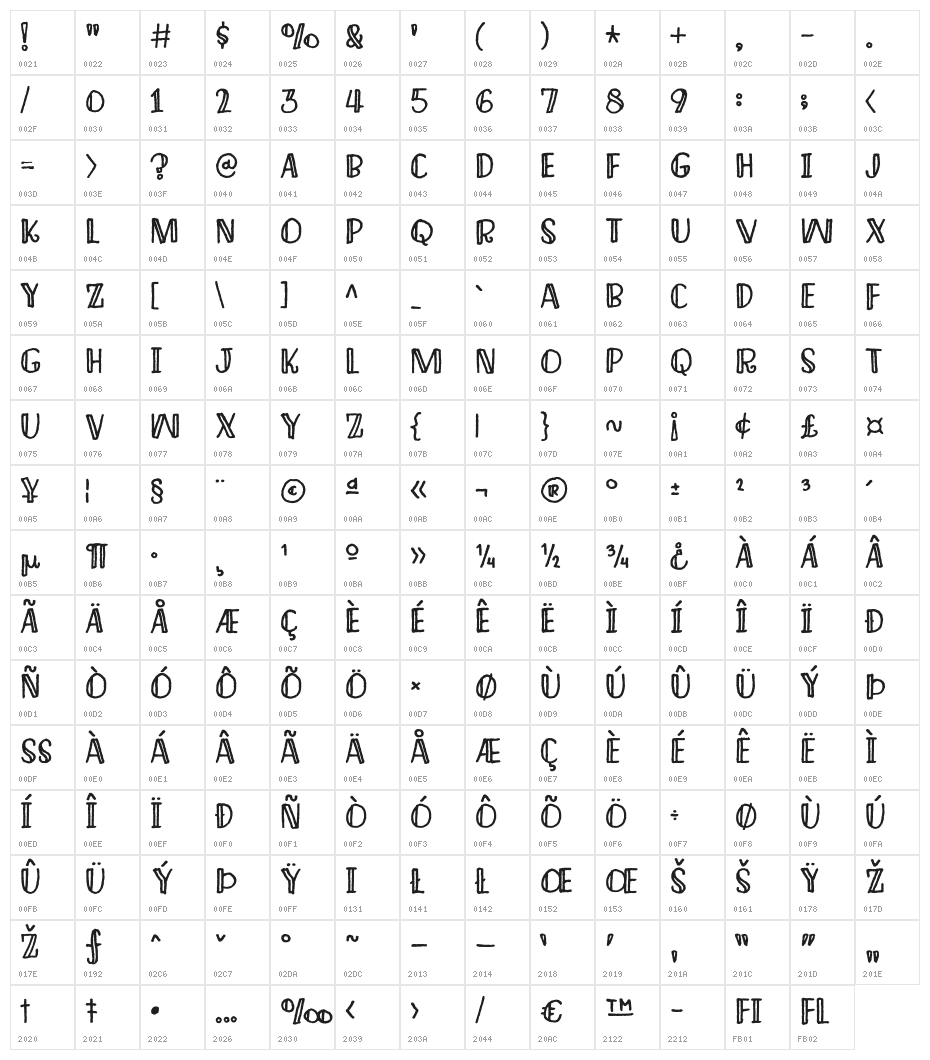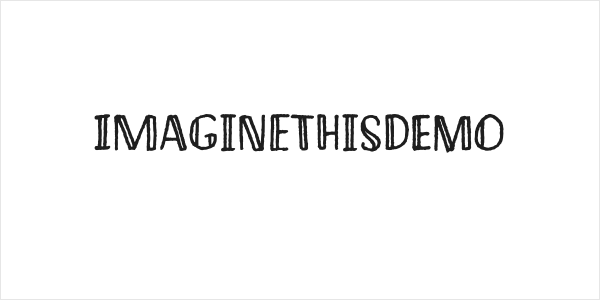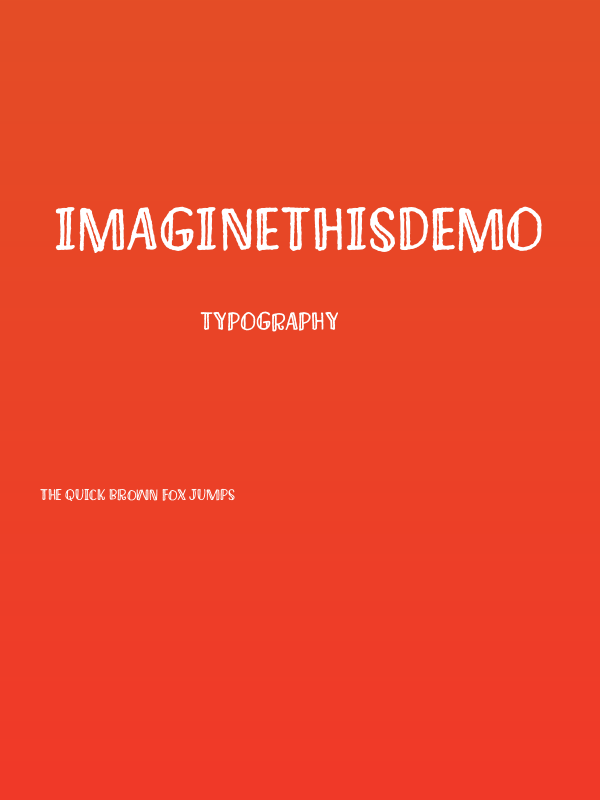
ImaginethisDEMO Font
ImaginethisDEMO Description
This font features a bold, hand-drawn style with a playful and artistic flair. The characters are slightly irregular, giving them a unique and organic feel. The strokes are thick and uneven, adding to the handcrafted appearance. The uppercase and lowercase letters maintain a consistent style, with rounded edges and a casual, friendly vibe. The numbers and special characters follow the same design, ensuring a cohesive look across all elements. This font is perfect for projects that require a personal touch or a creative, informal aesthetic.
Proposed ProjectsIdeal for greeting cards, posters, children's books, and creative branding.